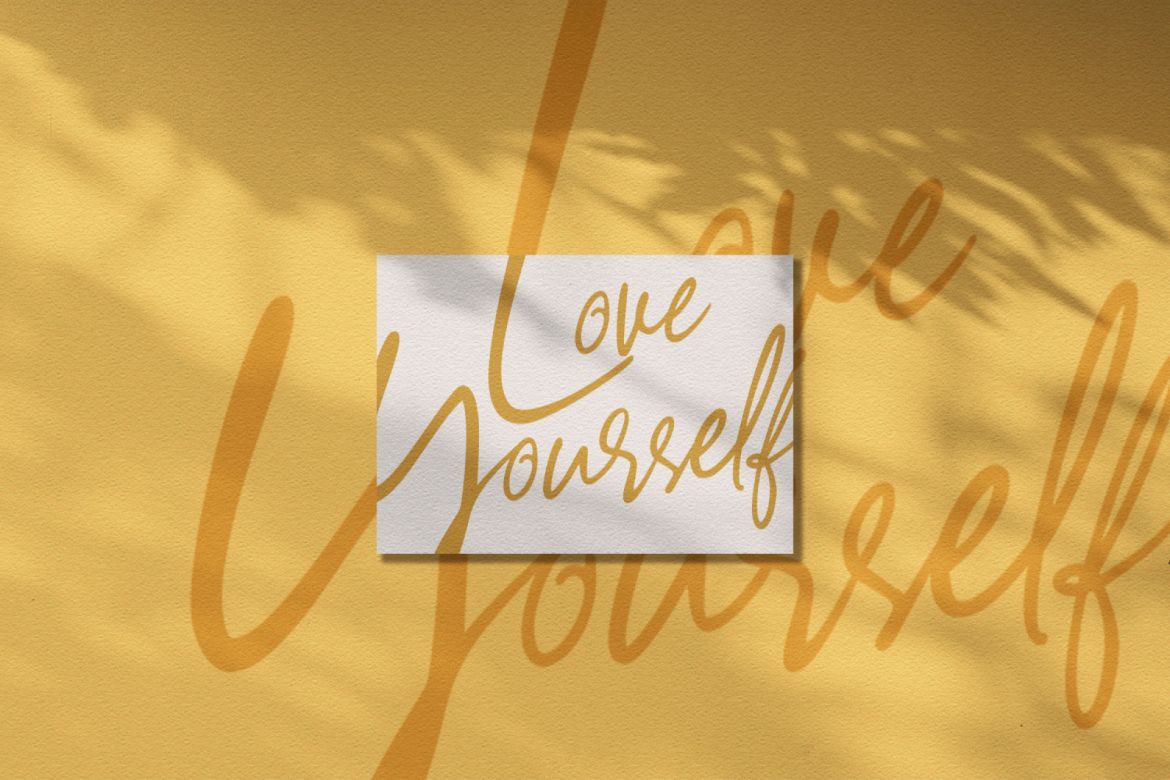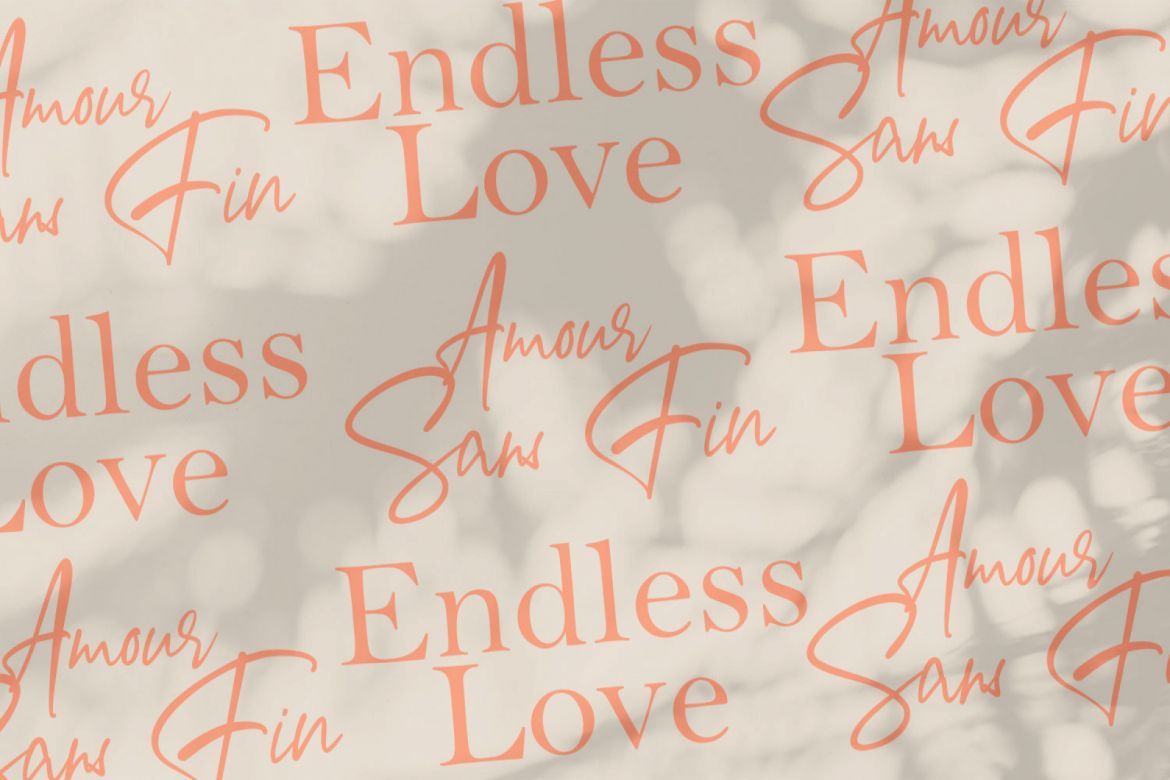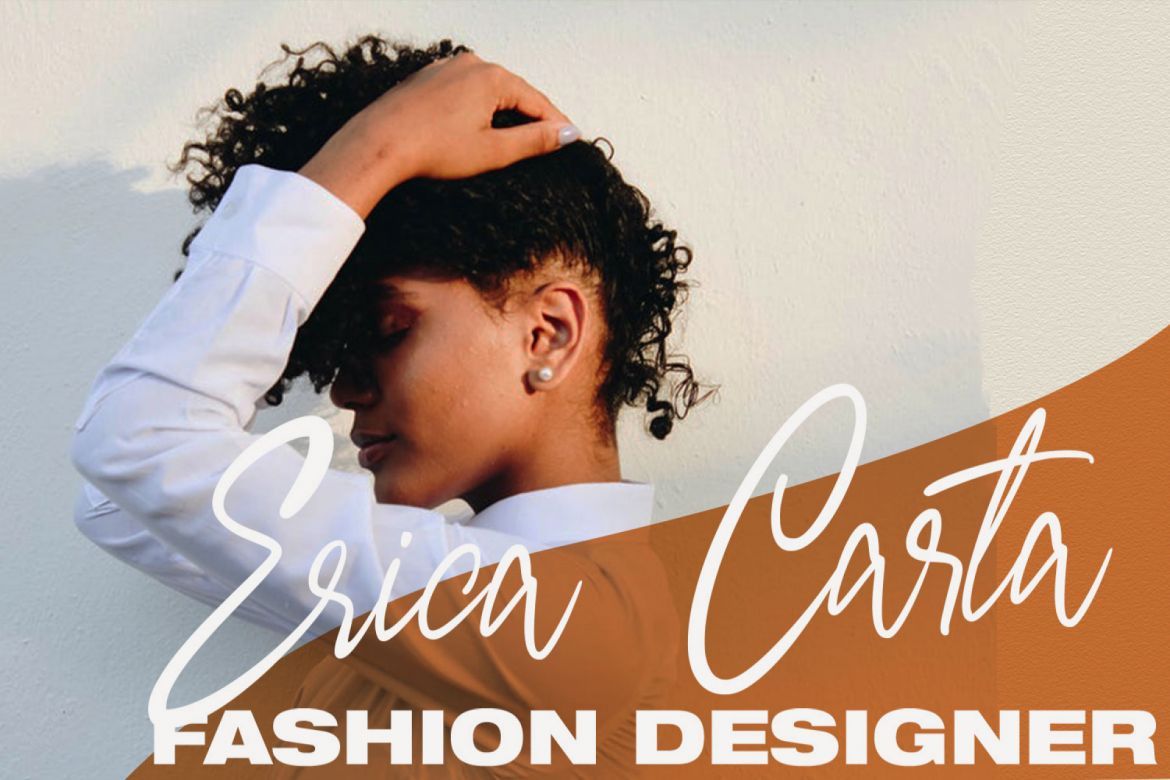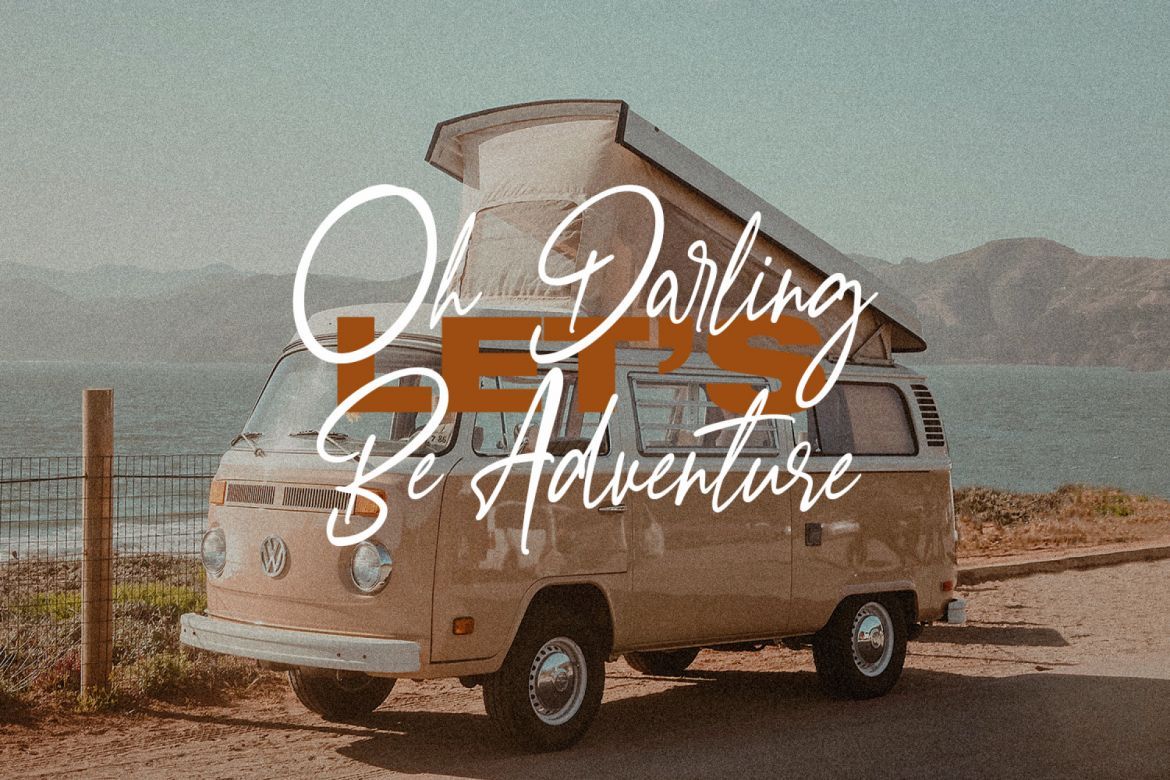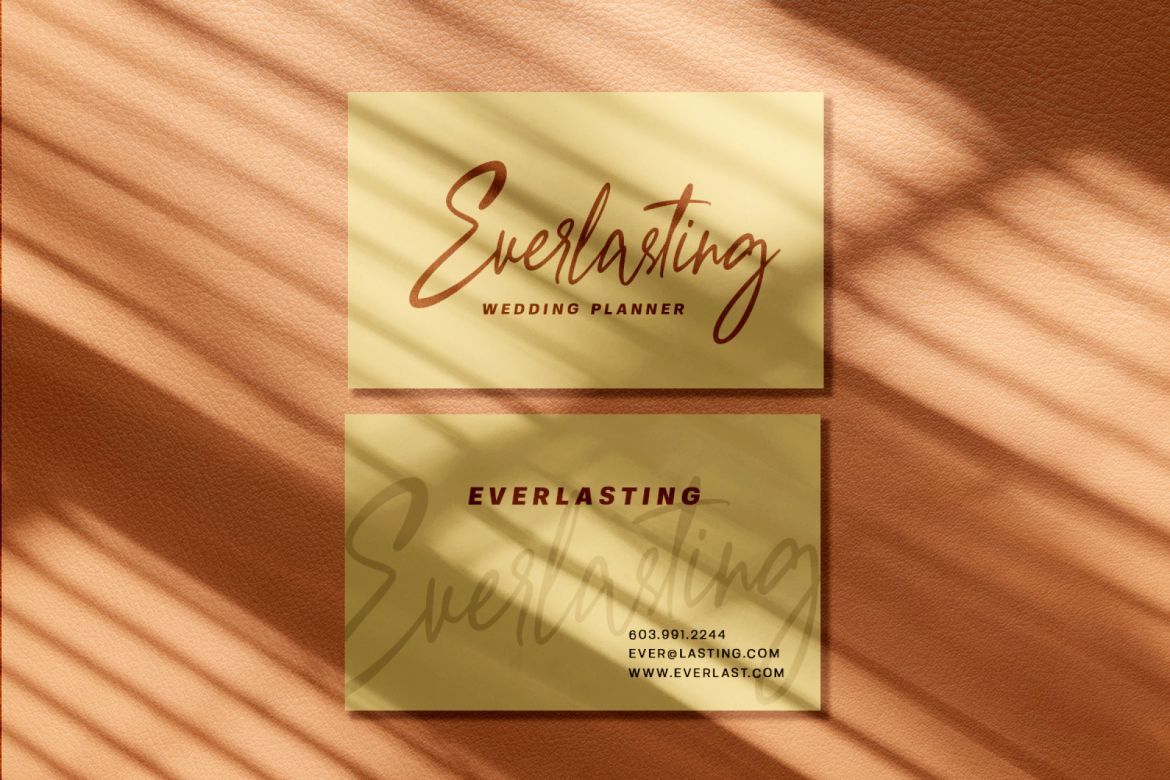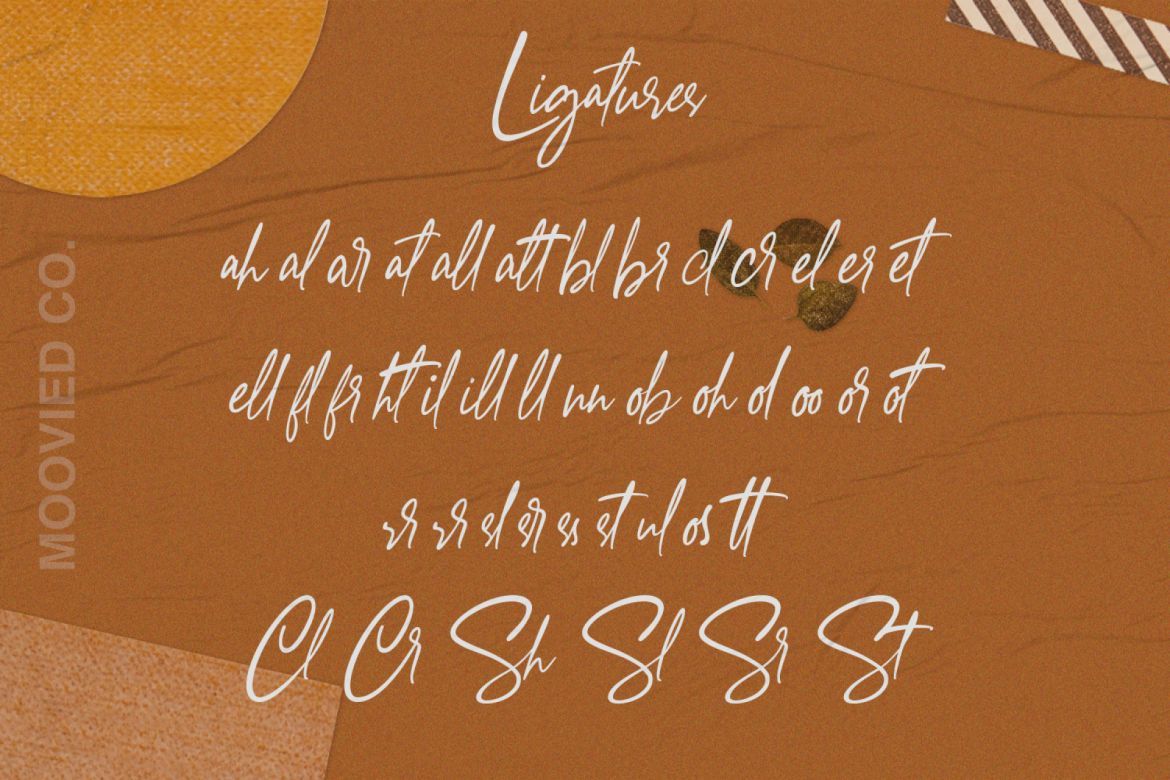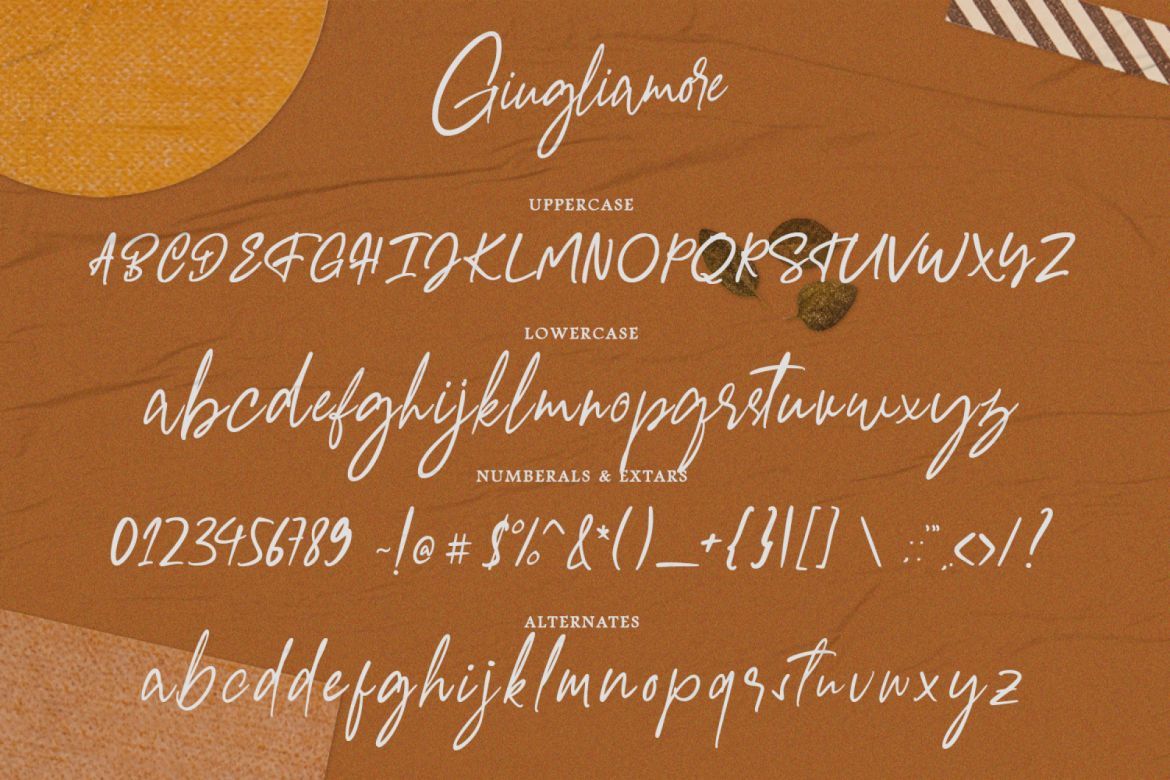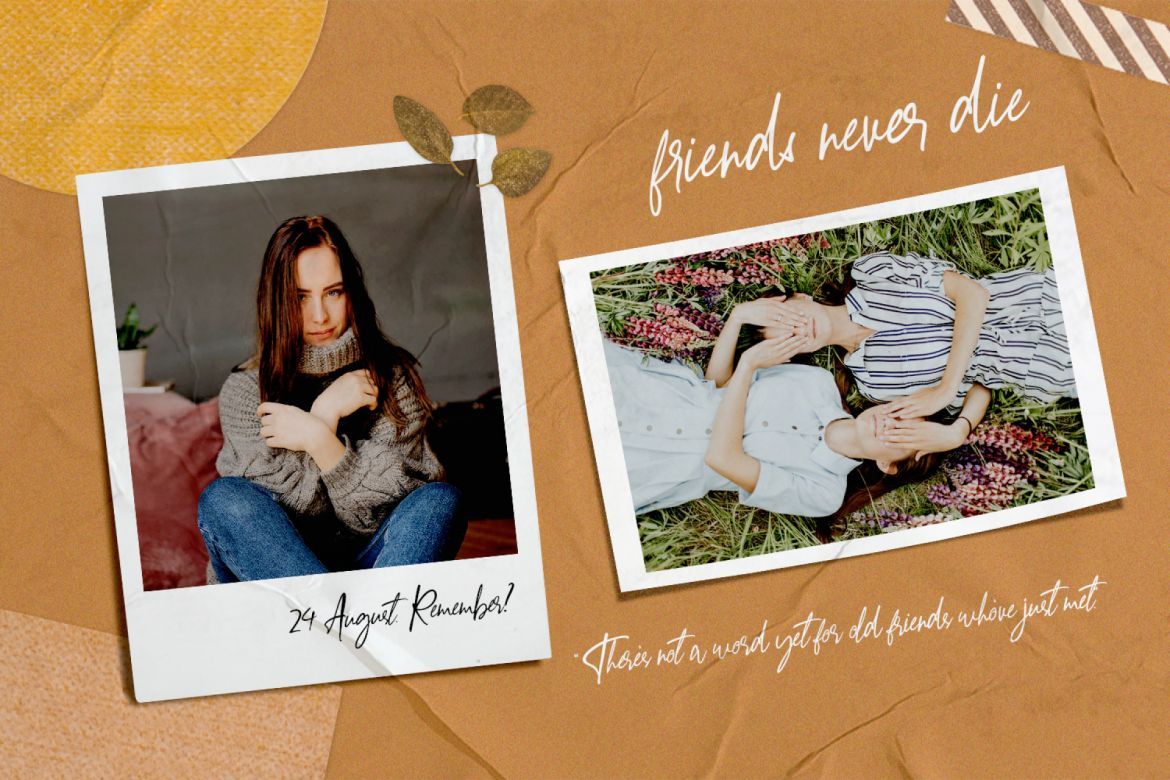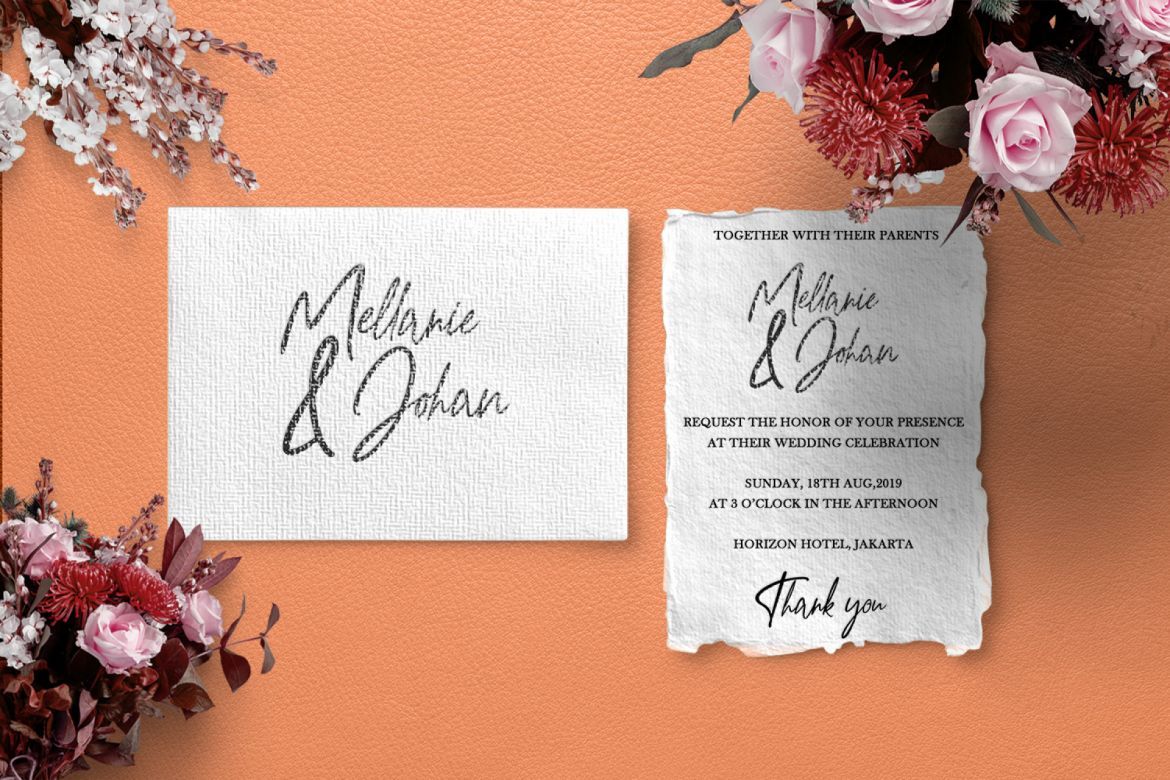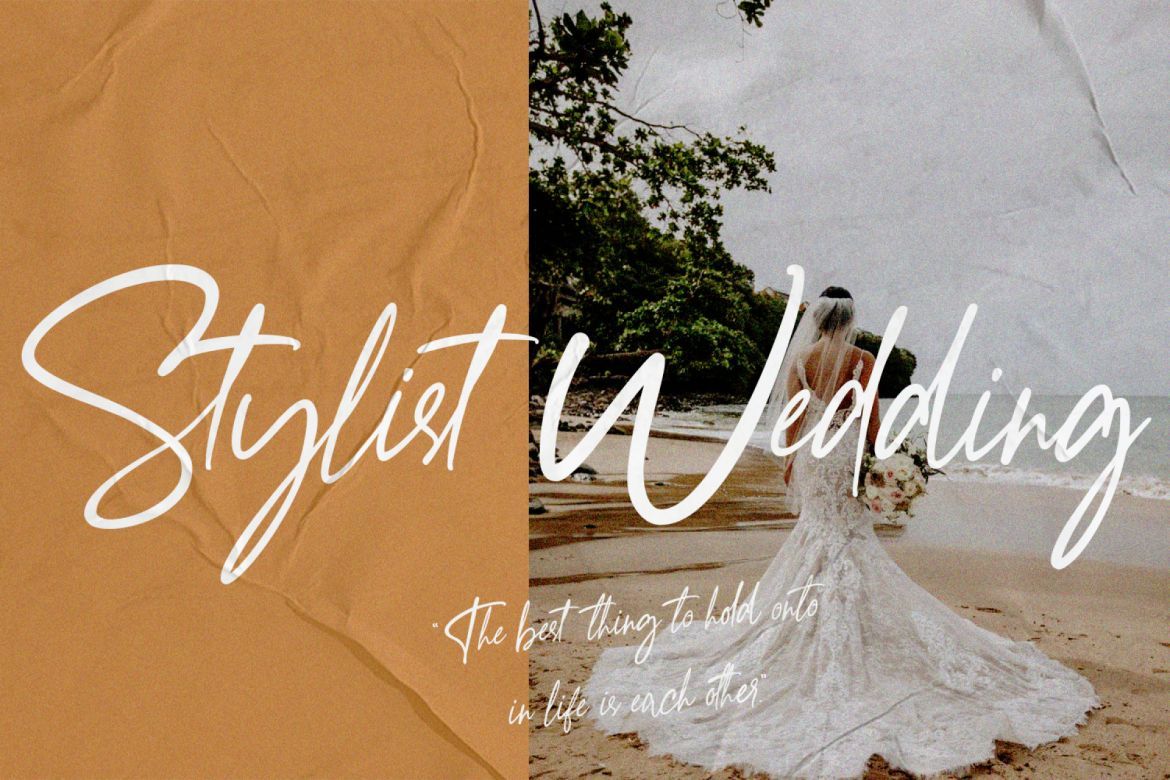
Giugliamore Handwriting Font
Giugliamore Handwriting Font is a modern signature, It is perfect for blogging, social media, branding, product packaging, wedding invitations, branding, headlines, signage, labels, signature, book covers, posters, quotes and more.